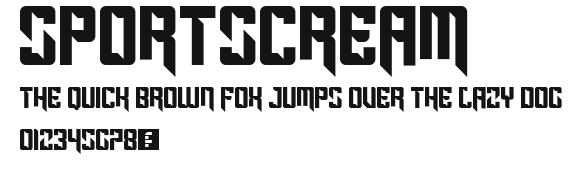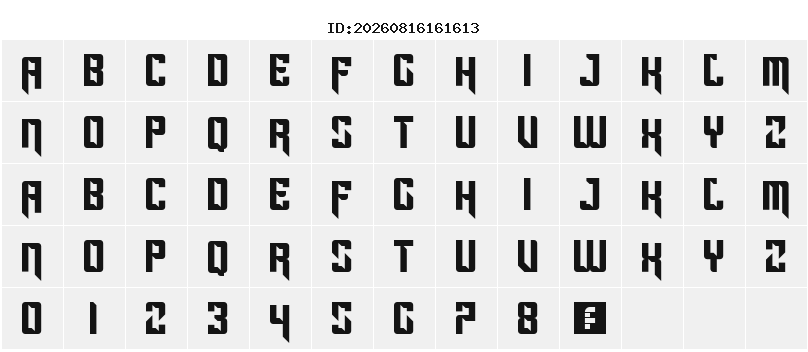
• Font Name: Sportscream
• Full Font Name: Sportscream Regular
• Designer: NAL
• Description: “Sportscream” was built with FontStruct
About Sportscream.ttf
Sportscream.ttf is a modern, elegant sans-serif font designed for ultimate readability and visual harmony. Perfect for branding, headlines, web design, and print materials.